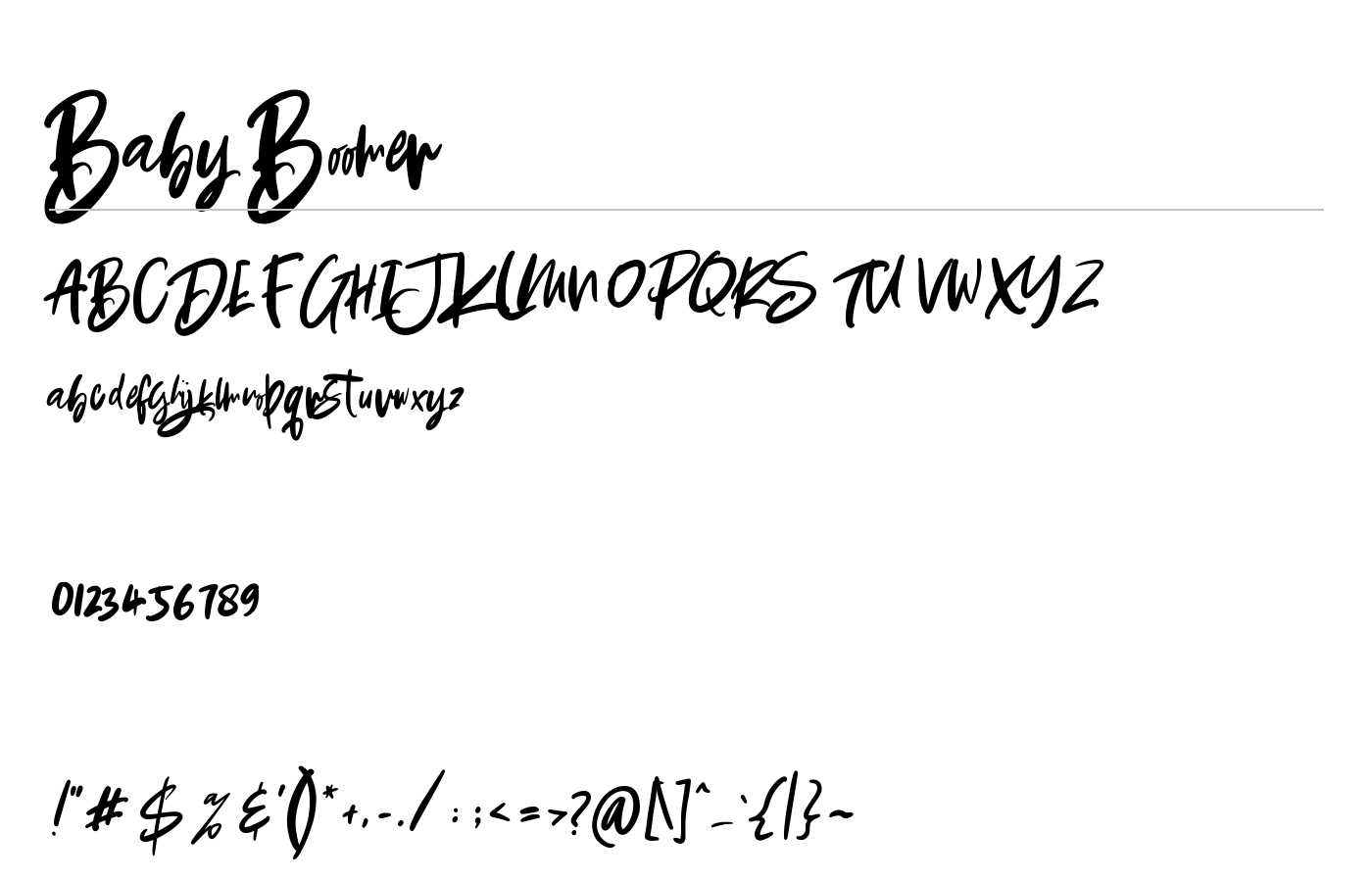
Baby Boomer is a bold and lively handwritten script font that blends casual charm with a confident stroke style. Its playful, slightly condensed letterforms with varied thickness and energetic flow make it perfect for creative branding, logos, and eye-catching headlines that want to convey a friendly yet spirited personality. This font works especially well where a personal, informal touch is desired, such as fashion labels, modern packaging, or dynamic editorial design.
Baby Boomer Font
About Baby Boomer Font
| Font family | Baby Boomer Font |
| Designer | Hendra Maulia |